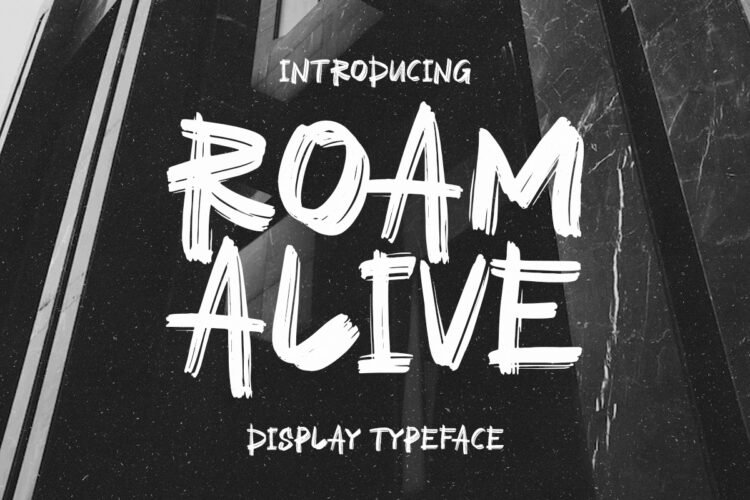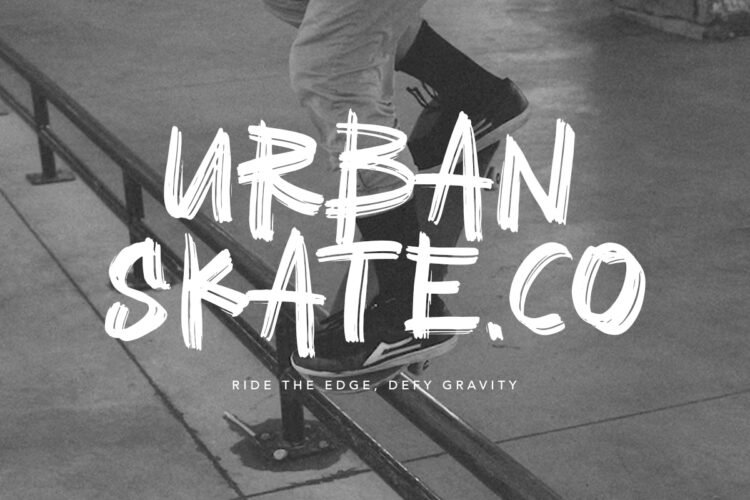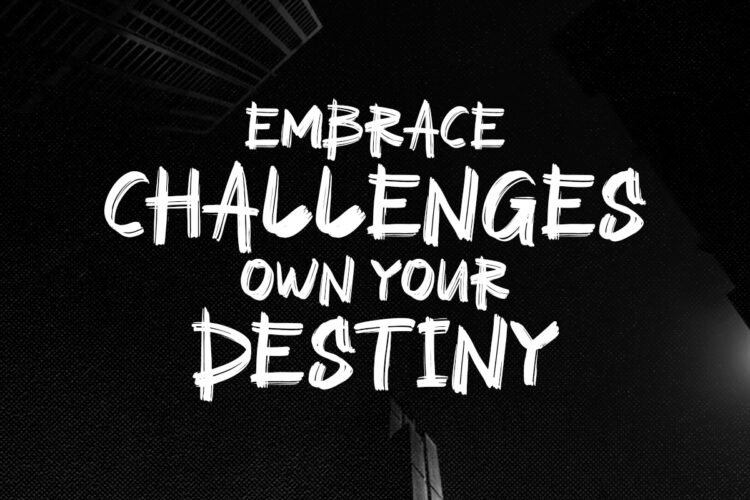
Roam Alive is an organic and captivating display font that embodies a bold and fearless spirit. With its textured brush style, it exudes raw energy and adds a touch of untamed fierceness to any design. Each character is carefully crafted to convey the audacity and adventure of those who dare to roam beyond boundaries. Let Roam Alive be your creative companion, guiding you on a fearless journey of exploration and inspiring designs that leave a lasting impression. Unleash the power of Roam Alive and let your creativity thrive. Embrace the wild, embrace the bold, and let your designs come alive.